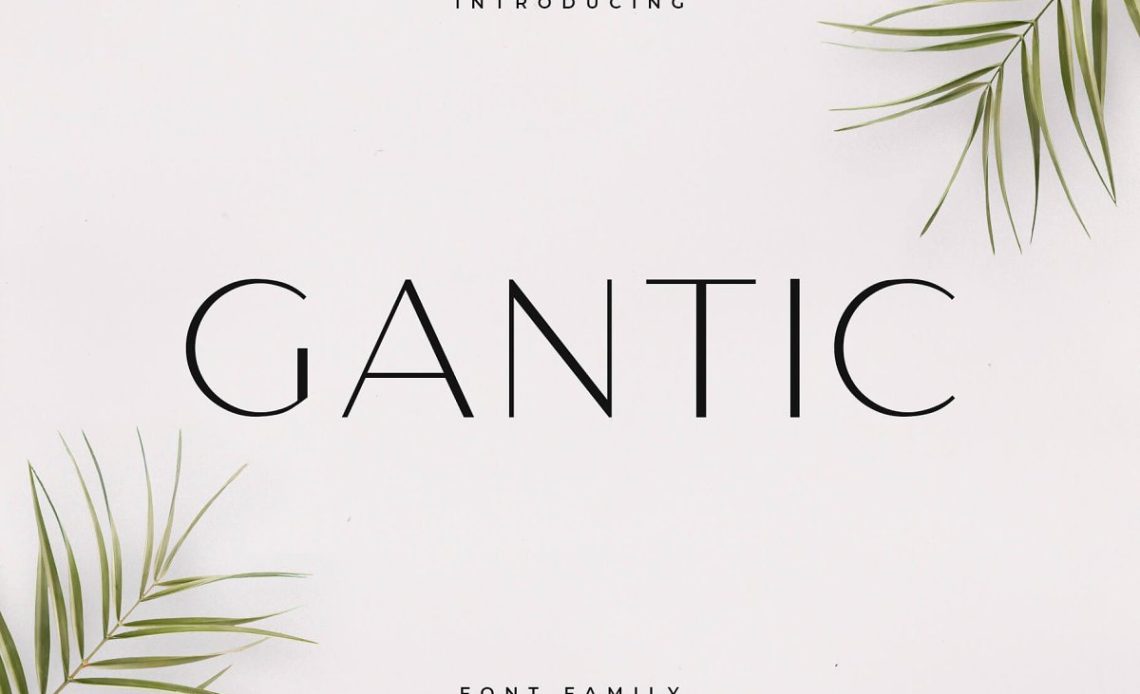
Introducing Gantic Font Family - the ultimate sans serif font that's taking the design world by storm! Created by the talented Robin Campistron, Gantic is the perfect choice for anyone looking to elevate their design game and create stunning branding, logos, magazines, videos, weddings, quotes, print, product packaging, website, clothing designs and much more.
With its elegant and clean design, Gantic is a versatile font family that's designed to make your branding stand out. Its strong and classic style is perfect for creating a bold and unforgettable impression, no matter what your design needs are.
What sets Gantic apart from other fonts on the market is its impressive features. Gantic boasts uppercase and lowercase letters, numbers, punctuation, symbols, accented characters, light, regular, bold, outline, and even multilingual foreign language characters. With Gantic, the possibilities for creating eye-catching designs are endless.
But that's not all - Gantic is also the best font for ebook title, making it the perfect choice for authors, publishers, and designers looking to create attention-grabbing ebook covers that sell.